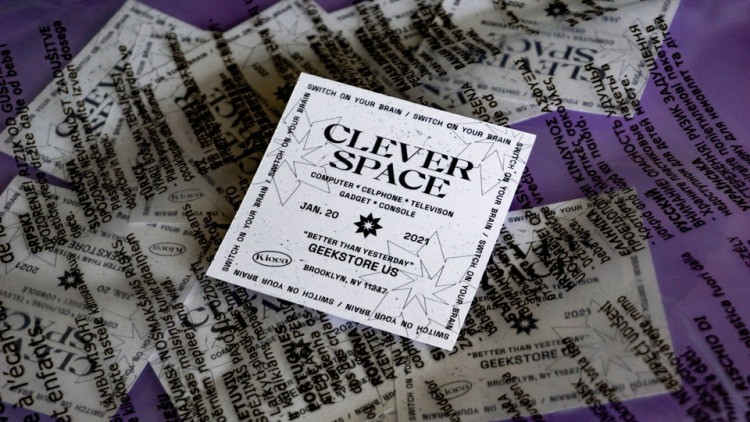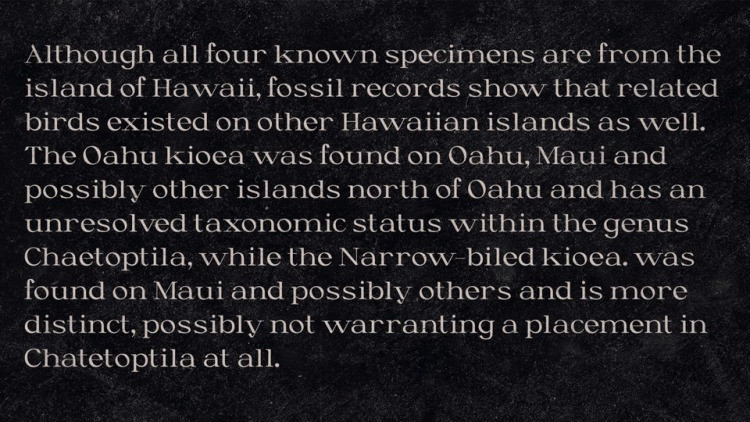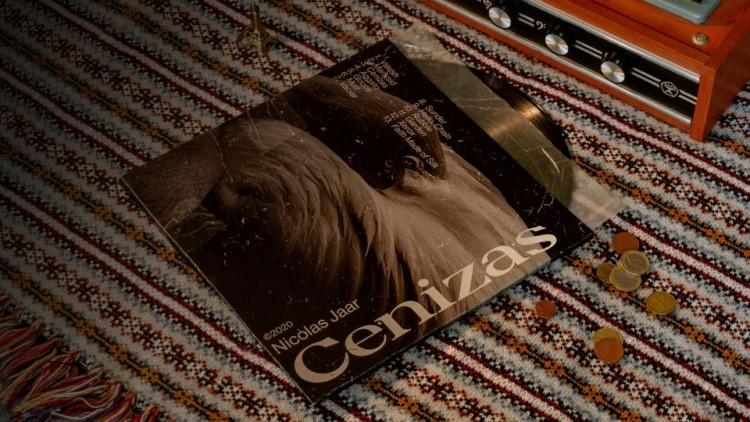
Kioea Serif Font
This is a modern, classy serif font typeface that looks incredible in every context. It’s designed and shared by Dominik Czank. Kioea is a contemporary serif typeface both impressive at display sizes and easily readable in text size. Its dynamic and high contrast shapes make Kioea perfect for logo design or impressive editorial use.